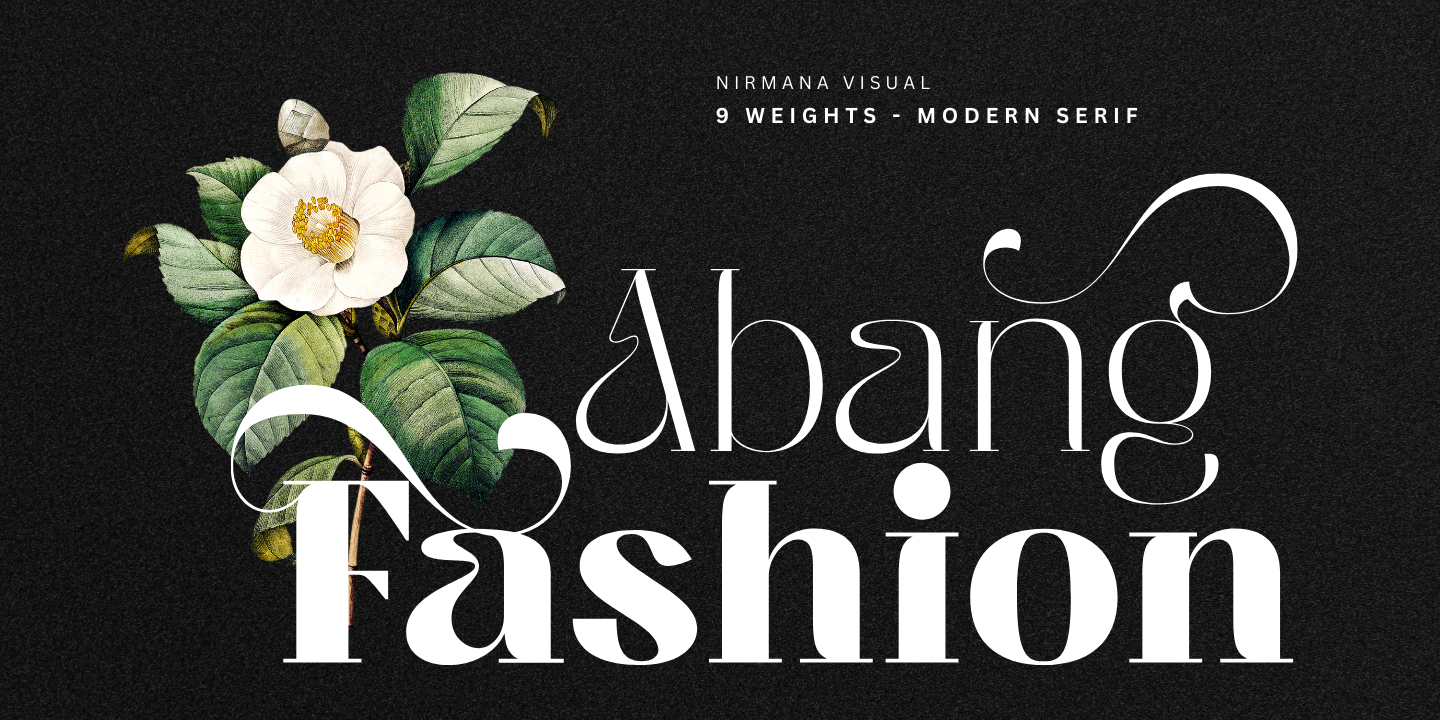
Abang Fashion Font is perfect for high-end fashion branding, luxury boutique logos, couture collection presentations, designer label packaging, fashion magazine headlines, runway show graphics, upscale retail communications, and sophisticated style marketing campaigns. This elegant typeface excels in applications requiring refined fashion aesthetic and luxury appeal that captures the essence of haute couture and premium fashion industry sophistication.
What makes Abang Fashion Font exciting is its sophisticated fashion-forward design that perfectly embodies contemporary luxury and high-end style through sleek, runway-ready letterforms. The font features elegantly proportioned characters with fashion-conscious styling and premium appeal that instantly conveys themes of luxury, sophistication, and cutting-edge fashion perfect for brands establishing themselves in competitive luxury markets.
The Abang Fashion Font family includes multiple weights and stylish variations with fashion-forward elements, offering designers comprehensive tools for creating sophisticated fashion communications. The family provides consistent luxury aesthetic with varying elegance levels for versatile fashion branding and upscale retail projects requiring genuine haute couture character and premium fashion appeal.
Abang Fashion Font Free Download offers designers access to premium fashion typography that perfectly captures contemporary luxury trends and high-end style positioning. Whether you're creating designer brand materials, fashion publication layouts, luxury retail communications, or couture marketing campaigns, this font provides the sophisticated character needed for establishing fashion authority and luxury brand credibility.
The stylishly crafted letterforms of Abang Fashion Font ensure optimal visual impact while maintaining fashion-forward elegance and luxury appeal, making it ideal for fashion websites, premium packaging, and high-end marketing materials. This versatile typeface combines fashion industry sophistication with modern technical standards for outstanding performance in contemporary design environments requiring authentic luxury character and fashion-forward aesthetic excellence.